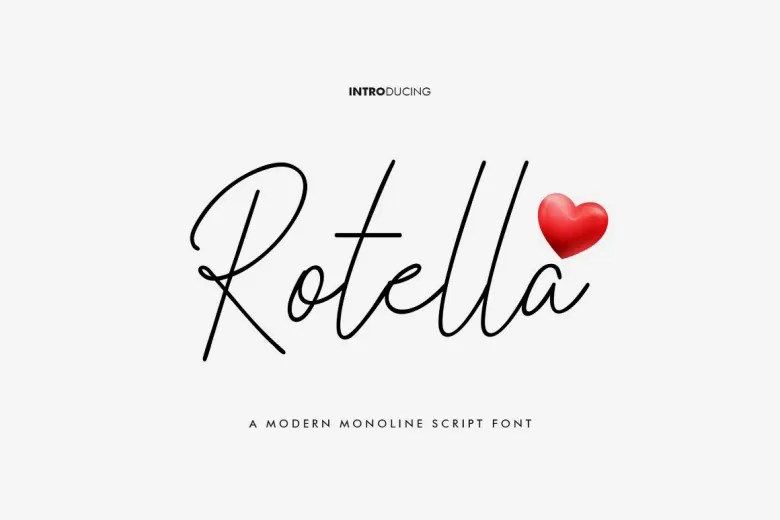
Rotella Font
Rotella is a captivating contemporary single-line script font that effortlessly adds a touch of elegance and modernity to any design. Perfectly suited for a wide range of creative projects, Rotella is ideal for logos, posters, magazine covers, banners, book covers, and much more. Its graceful, flowing lines make it a versatile choice for designers looking to inject a sense of sophistication and style into their work.
Whether you’re crafting a bold logo, designing an eye-catching poster, or adding a distinctive flair to a book cover, Rotella delivers a refined aesthetic that helps your projects stand out. This exquisite font allows your creative ideas to come to life, providing a unique touch to any design it graces. With its smooth, single-line style, Rotella is easy to integrate into various projects, making it a must-have for any designer’s toolkit.